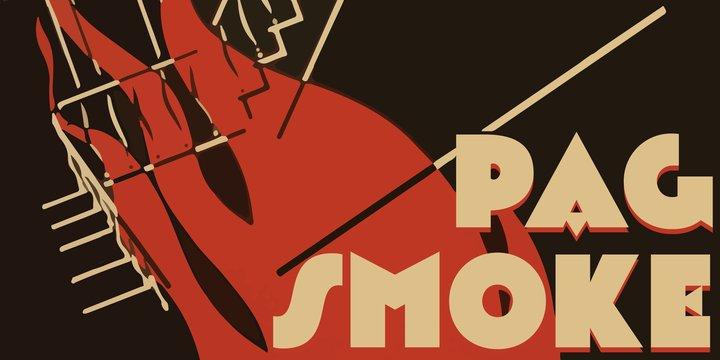
PAG Smoke Font
Prop-a-ganda offers retro-flavored fonts inspired by lettering on retro propaganda posters, retro advertising posters, retro packages all the world over. This is perfect font for your retrospective project.
PAG Smoke is very heavy geometric font. Its unique shape is like a monster for your design project.